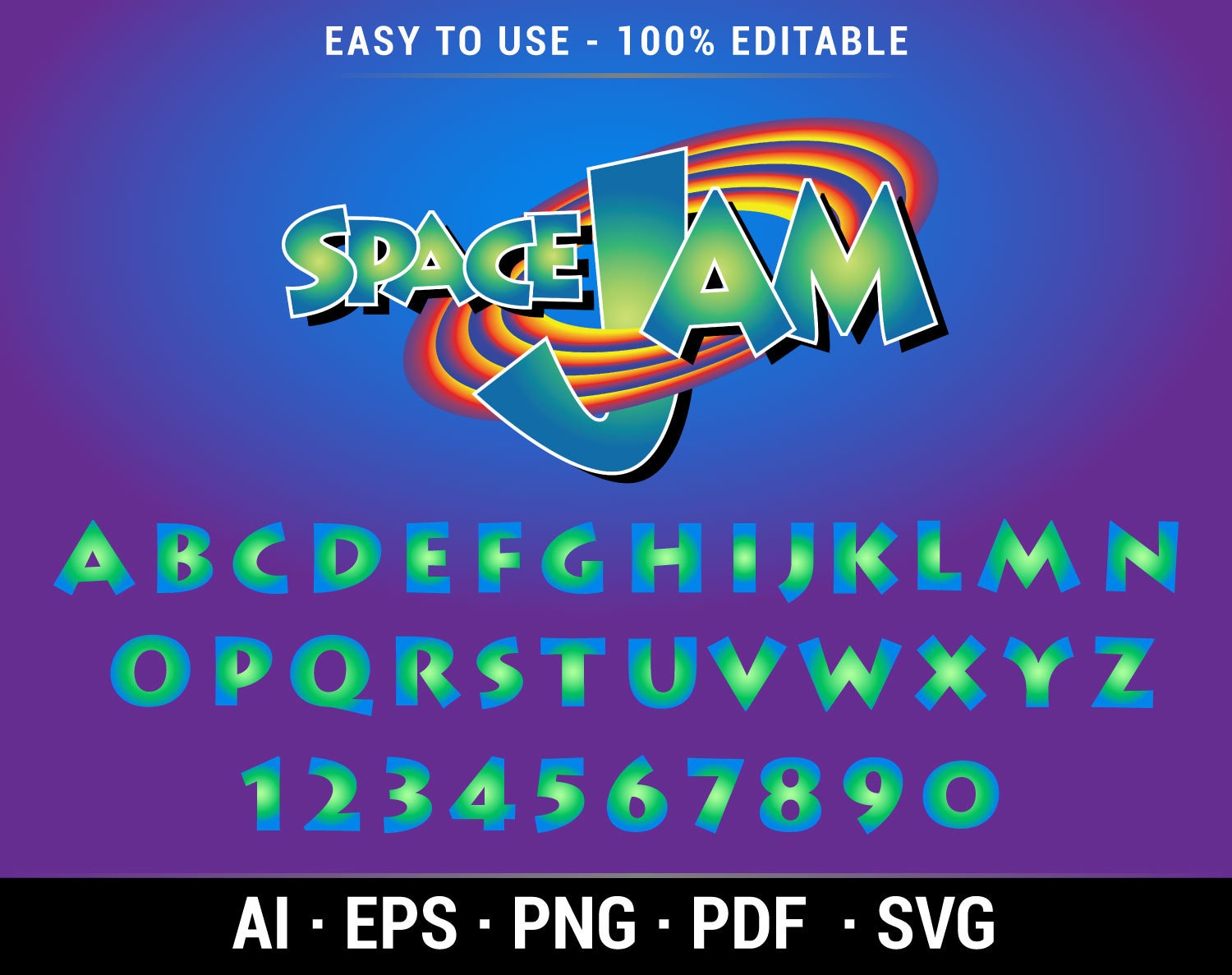
Space Jam Font
Space Jam Font - Web space jam font is a familiar & friendly logo font that is known as a different lithos black font. Space jam font generator & download is available free at fontbolt. Space jam a new legacy font generator & download is available free at fontbolt. Web about space jam font. Try our text generator and create cool. Web space jam font is a logo font that we have seen in the title of space jam. Space jam is a famous american animated sports comedy film. Try our text generator and create cool. It’s an american animated sports comedy film that was first released on 15th.
Try our text generator and create cool. It’s an american animated sports comedy film that was first released on 15th. Web about space jam font. Web space jam font is a familiar & friendly logo font that is known as a different lithos black font. Space jam is a famous american animated sports comedy film. Try our text generator and create cool. Space jam a new legacy font generator & download is available free at fontbolt. Web space jam font is a logo font that we have seen in the title of space jam. Space jam font generator & download is available free at fontbolt.
It’s an american animated sports comedy film that was first released on 15th. Web about space jam font. Web space jam font is a familiar & friendly logo font that is known as a different lithos black font. Web space jam font is a logo font that we have seen in the title of space jam. Try our text generator and create cool. Space jam is a famous american animated sports comedy film. Space jam font generator & download is available free at fontbolt. Space jam a new legacy font generator & download is available free at fontbolt.
Try our text generator and create cool. Web space jam font is a familiar & friendly logo font that is known as a different lithos black font. Space jam font generator & download is available free at fontbolt. Space jam a new legacy font generator & download is available free at fontbolt. Web space jam font is a logo font.
Web space jam font is a logo font that we have seen in the title of space jam. Web about space jam font. Space jam a new legacy font generator & download is available free at fontbolt. Space jam font generator & download is available free at fontbolt. Space jam is a famous american animated sports comedy film.
Web space jam font is a logo font that we have seen in the title of space jam. Try our text generator and create cool. Web about space jam font. Try our text generator and create cool. Web space jam font is a familiar & friendly logo font that is known as a different lithos black font.
Web space jam font is a familiar & friendly logo font that is known as a different lithos black font. Web about space jam font. Space jam a new legacy font generator & download is available free at fontbolt. Try our text generator and create cool. Web space jam font is a logo font that we have seen in the.
It’s an american animated sports comedy film that was first released on 15th. Web space jam font is a familiar & friendly logo font that is known as a different lithos black font. Space jam a new legacy font generator & download is available free at fontbolt. Try our text generator and create cool. Space jam is a famous american.
Space jam is a famous american animated sports comedy film. It’s an american animated sports comedy film that was first released on 15th. Web about space jam font. Space jam font generator & download is available free at fontbolt. Web space jam font is a logo font that we have seen in the title of space jam.
Try our text generator and create cool. Space jam a new legacy font generator & download is available free at fontbolt. Web about space jam font. Space jam font generator & download is available free at fontbolt. Space jam is a famous american animated sports comedy film.
Web space jam font is a familiar & friendly logo font that is known as a different lithos black font. Space jam is a famous american animated sports comedy film. Web space jam font is a logo font that we have seen in the title of space jam. Try our text generator and create cool. Web about space jam font.
Space jam a new legacy font generator & download is available free at fontbolt. Space jam font generator & download is available free at fontbolt. Web space jam font is a familiar & friendly logo font that is known as a different lithos black font. Web space jam font is a logo font that we have seen in the title.
Web space jam font is a logo font that we have seen in the title of space jam. Space jam a new legacy font generator & download is available free at fontbolt. Space jam font generator & download is available free at fontbolt. Try our text generator and create cool. Web space jam font is a familiar & friendly logo.
Space jam a new legacy font generator & download is available free at fontbolt. Web space jam font is a logo font that we have seen in the title of space jam. It’s an american animated sports comedy film that was first released on 15th. Space jam is a famous american animated sports comedy film.